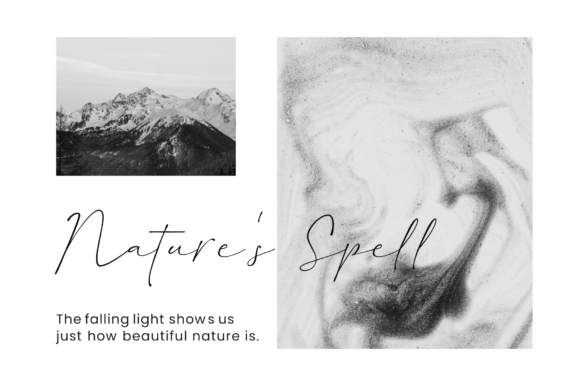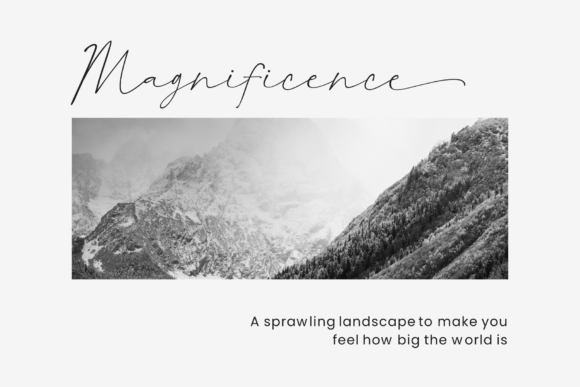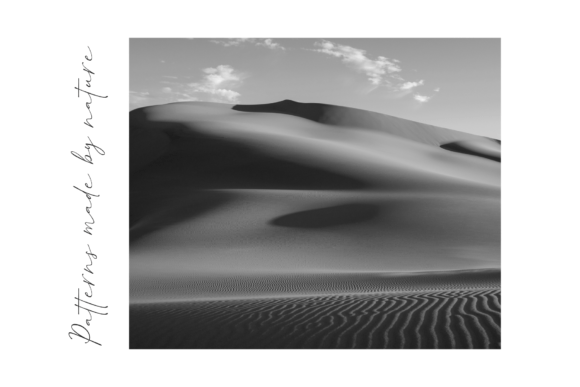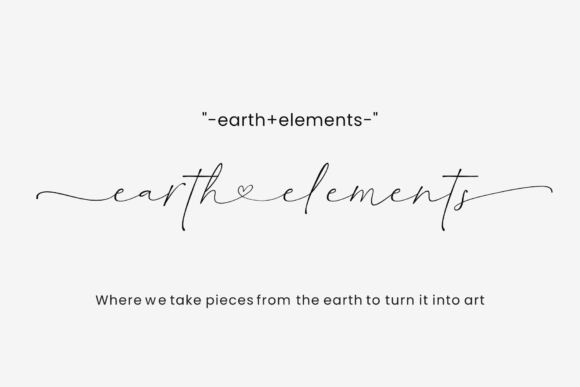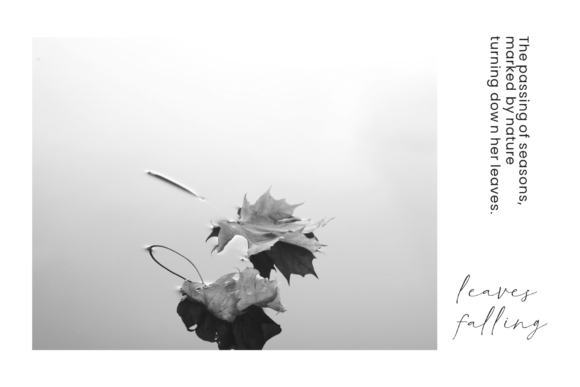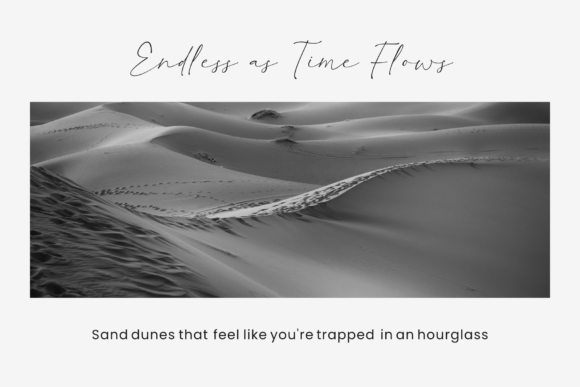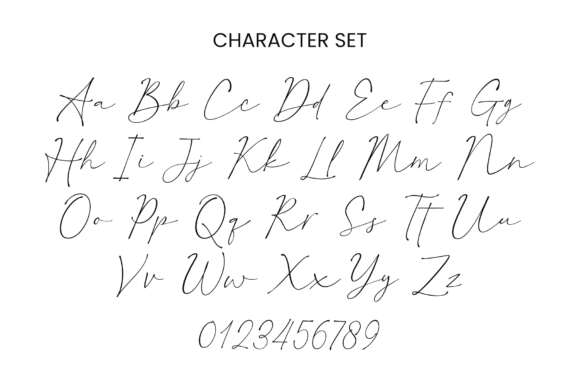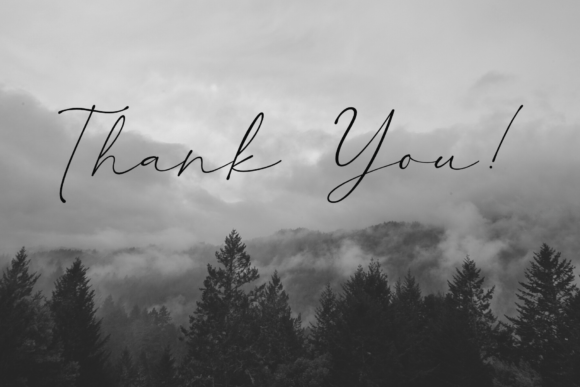
Raffishly Font
Raffishly Font : A Modern Handwritten Font for Luxurious Designs
Introducing Raffishly – a modern and luxurious handwritten font that brings casual elegance to your design projects. This exquisite typeface is perfect for a wide range of applications, from wedding invitations to branding and beyond.
Key Features of Raffishly Font
• Elegant Handwritten Style: Combines modernity with luxury for a sophisticated look
• Natural Expression: Features graceful swashes that enhance its handwritten charm
• Versatile Application: Suitable for wedding invitations, quotes, posters, and more
Perfect for Multiple Design Projects
Raffishly’s adaptability makes it an excellent choice for:
• Wedding invitations that evoke romance
• Luxurious branding materials that reflect refinement
• Captivating quotes that resonate with elegance
• Eye-catching posters and banners
• Fashion and photography projects that require a touch of modern charm
Enhancing Your Creative Vision
With Raffishly, you gain access to a font that exudes style and authenticity. Its casual yet elegant impression ensures that your content stands out while adding sophistication to your designs.
Digital and Print Versatility
Whether you’re creating digital designs or print materials, Raffishly maintains its luxurious appeal. Use it for:
• Striking website headers that capture attention
• Engaging email marketing campaigns that resonate with recipients
• Distinctive product packaging that showcases your brand’s elegance
Customization Options
Raffishly offers a wide array of customization options, allowing you to tailor your text to perfectly match your creative vision. This flexibility empowers you to create designs that are as unique as your artistic imagination.
Raffishly is more than just a font; it’s a design asset that elevates your creative projects with modern luxury and charm. Its handwritten style inspires stunning designs that leave a lasting impression on your audience. By incorporating Raffishly into your designs, you can create visually appealing and sophisticated content that engages your audience. Whether you’re an experienced designer or someone looking to add elegance to personal projects, Raffishly offers the perfect blend of style and functionality. Consider pairing Raffishly with clean sans-serif fonts for contrast or complementing it with other script fonts for a dynamic typographic palette. This versatility allows you to create designs that are both luxurious and harmonious across various mediums. Embrace the modern elegance of Raffishly today and watch as it transforms your creative ideas into captivating designs!